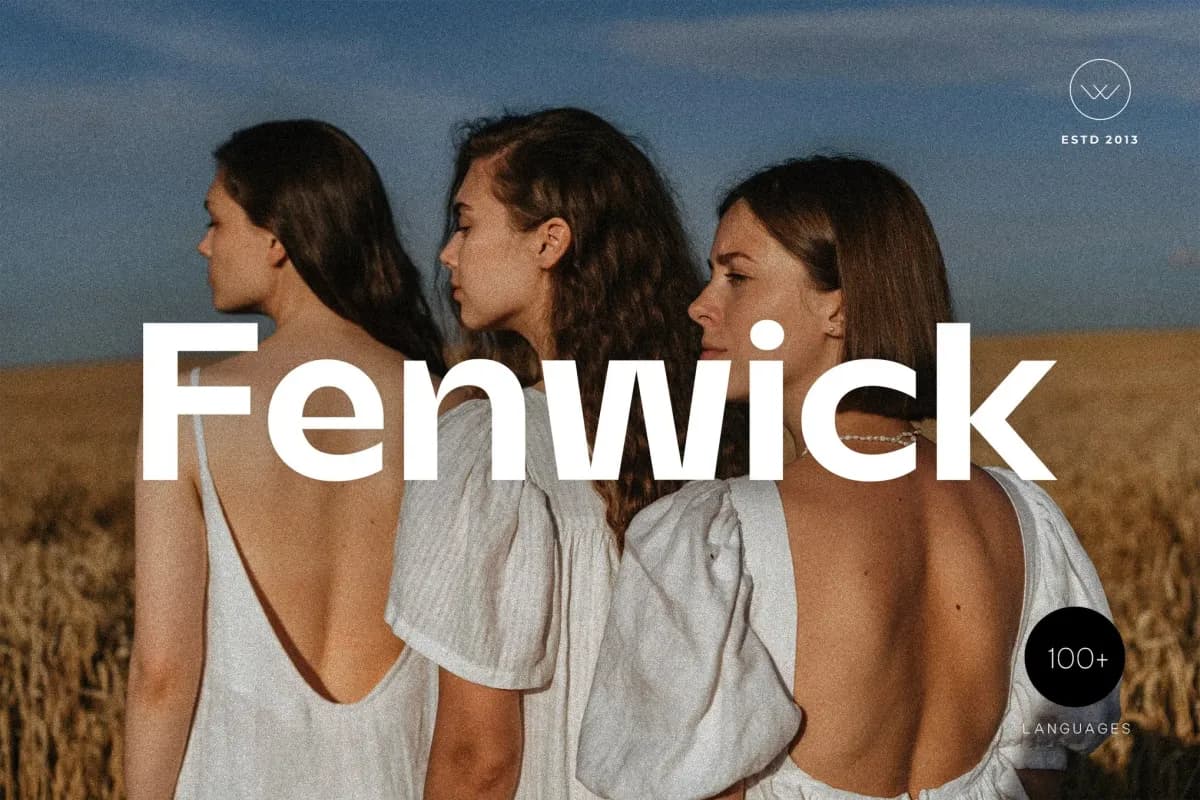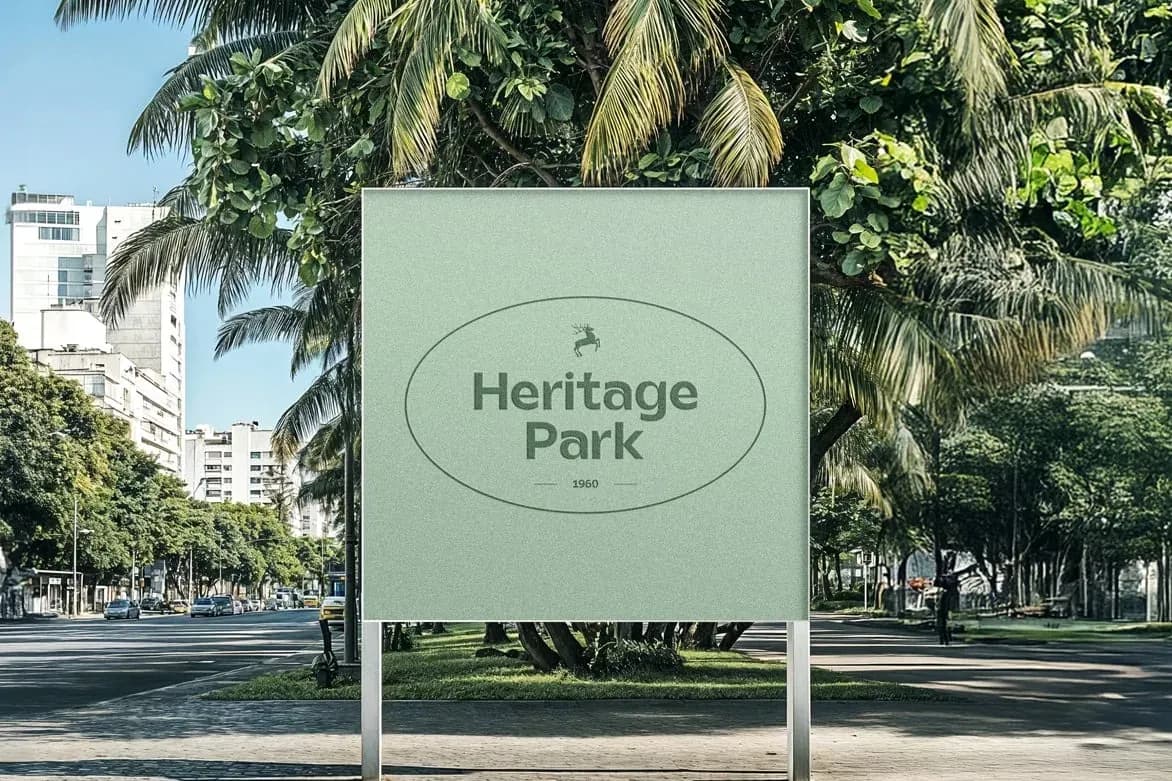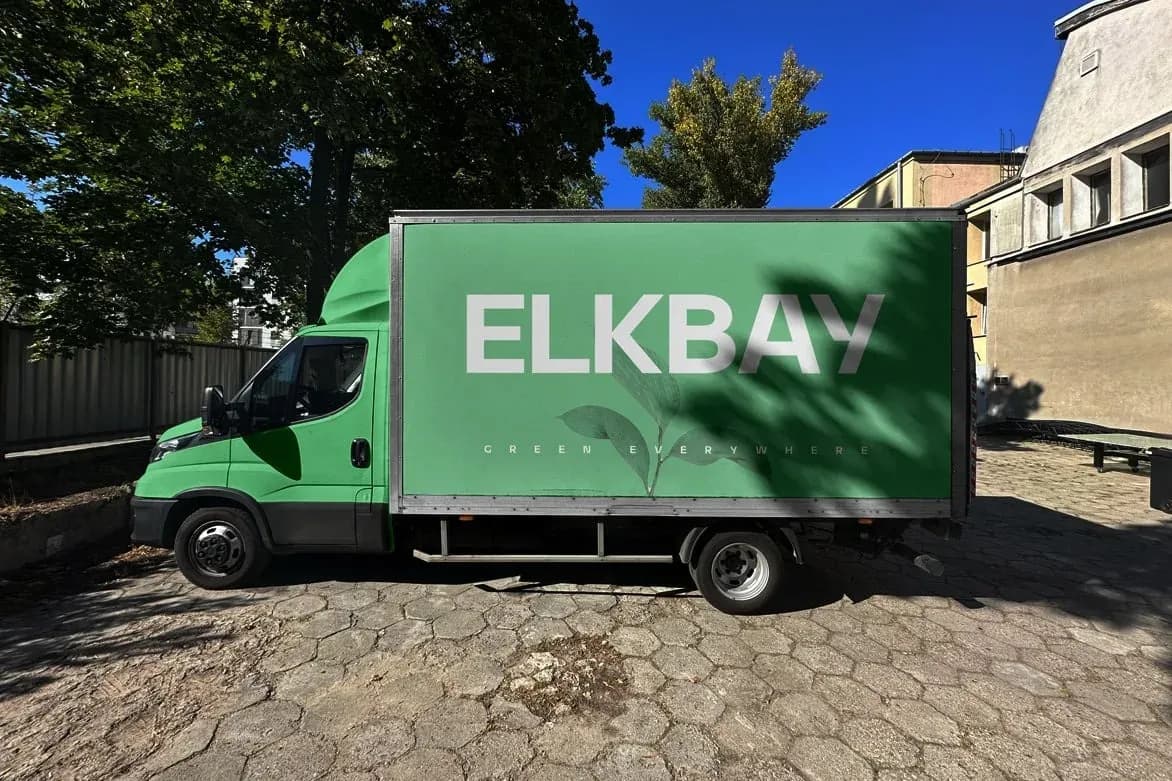
Fenwick
Fenwick, a sans-serif display font, is crafted to deliver a unique blend of modern design and functional clarity. This font features geometric forms and a thoughtful approach to kerning, which results in a harmonious visual experience. The clean lines and contemporary style of Fenwick convey a sense of professionalism while remaining approachable, making it an excellent choice for a variety of applications.
Designed with versatility in mind, Fenwick excels in scenarios such as web and app UI, logo design, and marketing sites. Its effectiveness in branding is particularly notable, providing a strong visual identity for companies aiming to stand out in a competitive marketplace. The font's clean appearance also makes it suitable for editorial layouts, ensuring that text remains legible and engaging across different formats.
Additionally, Fenwick supports Latin characters, which enhances its usability for a wide range of projects, from posters to social media content. This font is not just another display typeface; it offers a distinct character that elevates any design. Whether you’re creating a striking logo for a startup or an eye-catching poster for an event, Fenwick's modern sensibility and well-considered design features ensure it meets the demands of contemporary graphic design.